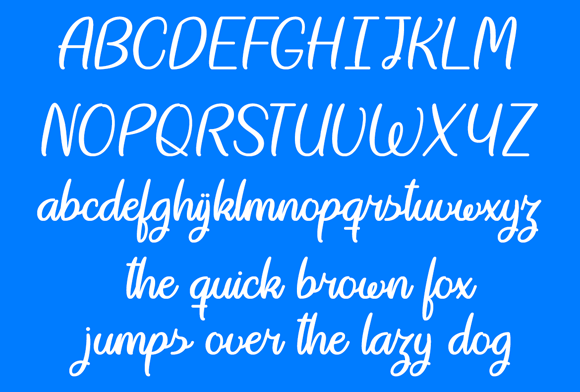
Introduction to Reality Shift Font
Reality Shift is a simple, yet stylish script that is great for a variety of projects, including logos, product labels, advertisements and so much more.
Reality Shift is a simple, yet stylish script that is great for a variety of projects, including logos, product labels, advertisements and so much more!
Key Features of Reality Shift Font
Why Choose Reality Shift Font?
Reality Shift Font offers exceptional quality and versatility, making it a valuable addition to your design toolkit. Whether you’re creating for personal projects or commercial use, Reality Shift Font delivers professional results.